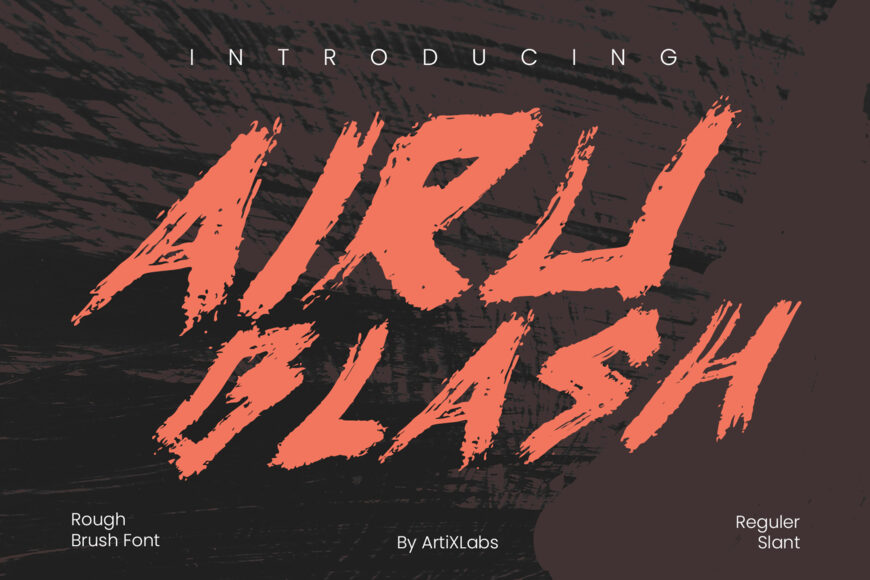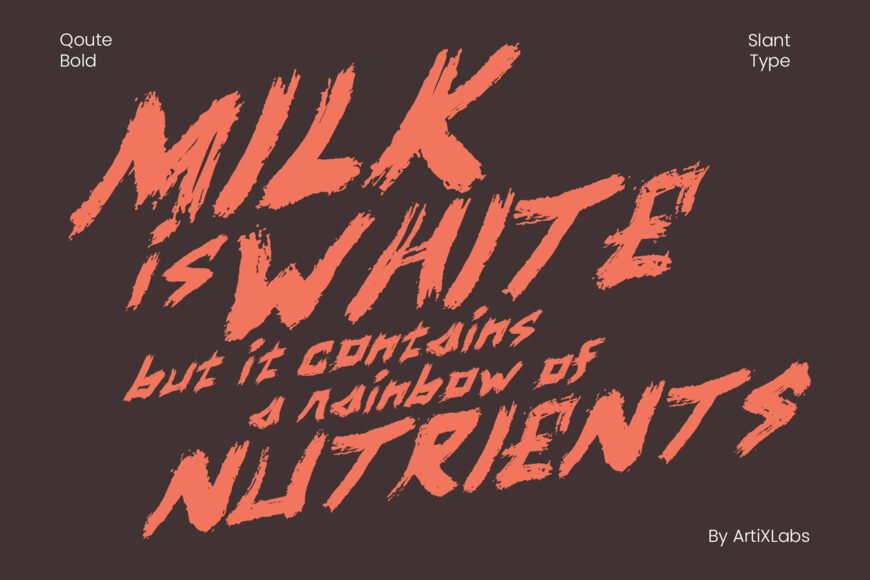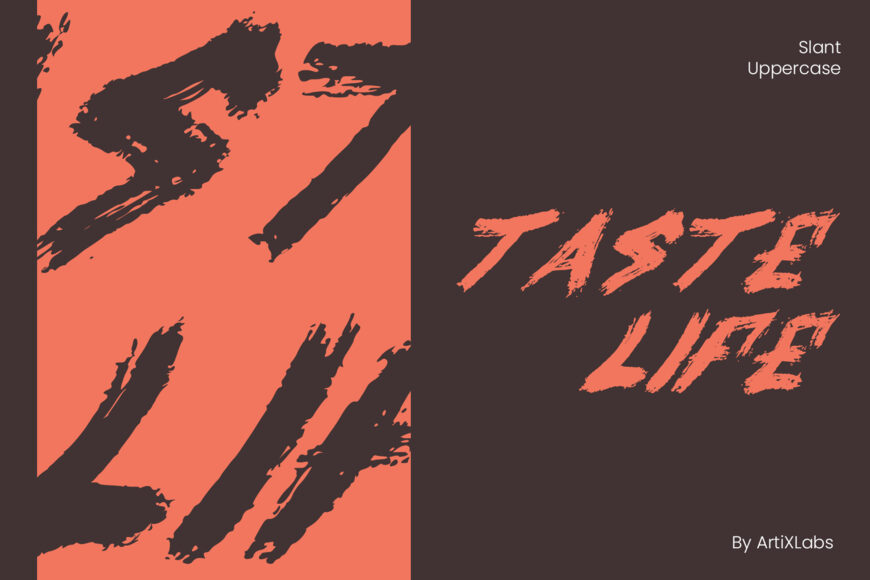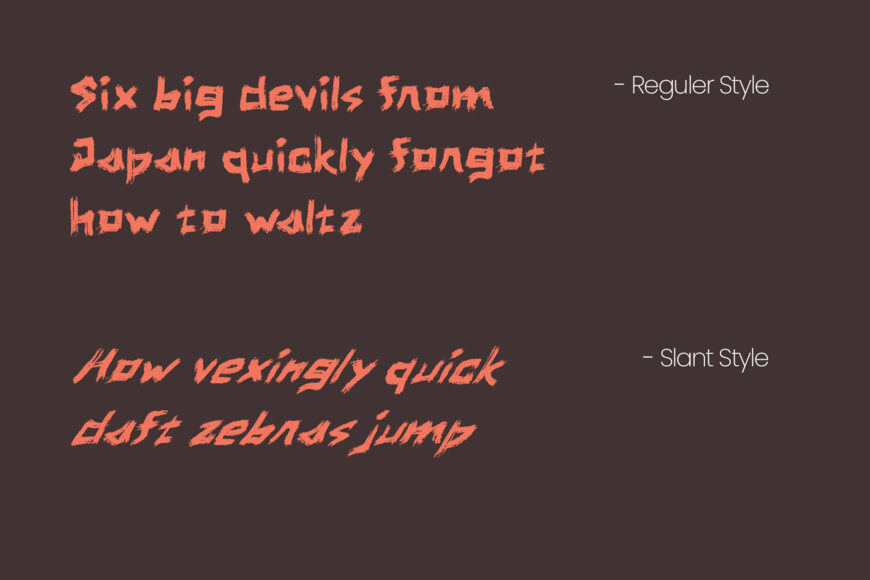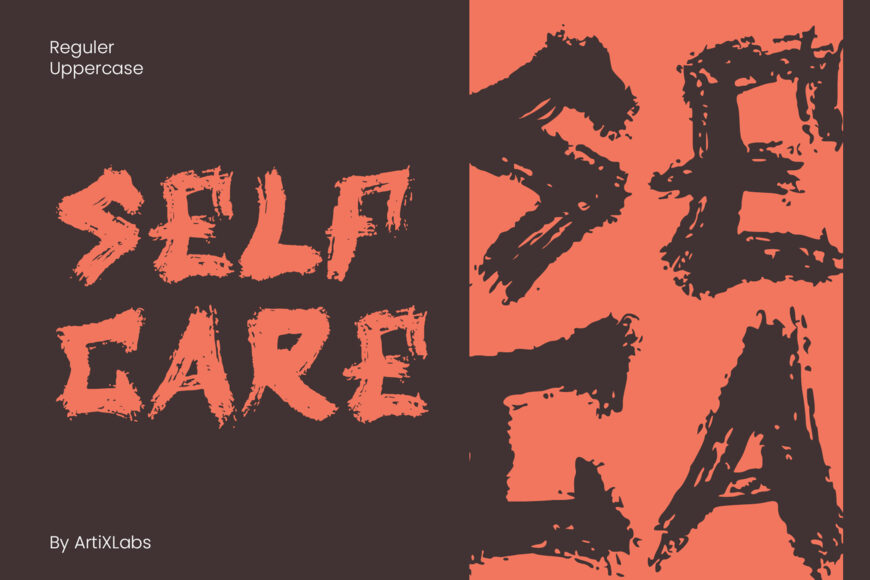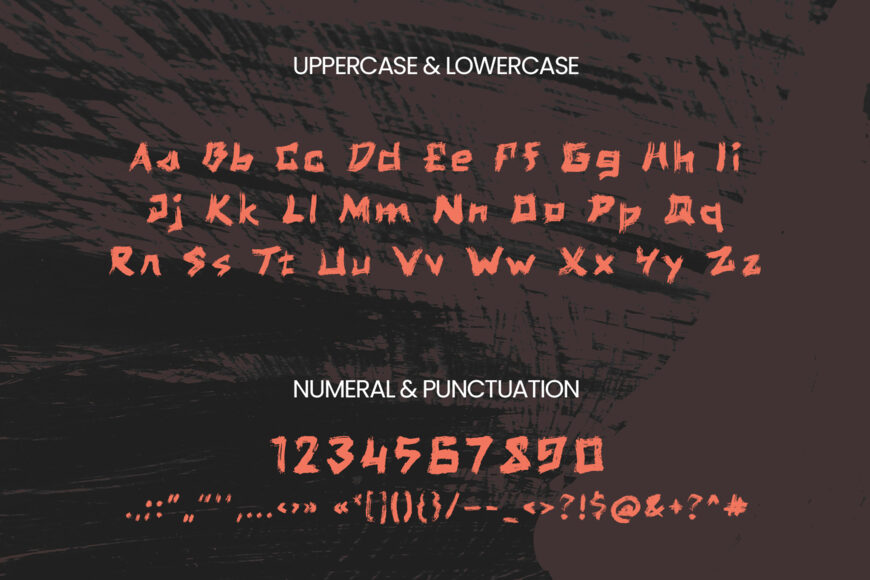
Bring raw energy, rapid motion, and urban attitude to your designs with Airu Blash. This bold, slanted brush font combines rugged dry-brush textures, crisp stroke edges, and sweeping speed lines for a dynamic, rebellious look.
Perfect for sports logos, action film posters, gaming titles, extreme sports merchandise, streetwear graphics, concert flyers, and custom Cricut or Silhouette SVG projects, Airu Blash adds powerful visual impact to any high-energy design.